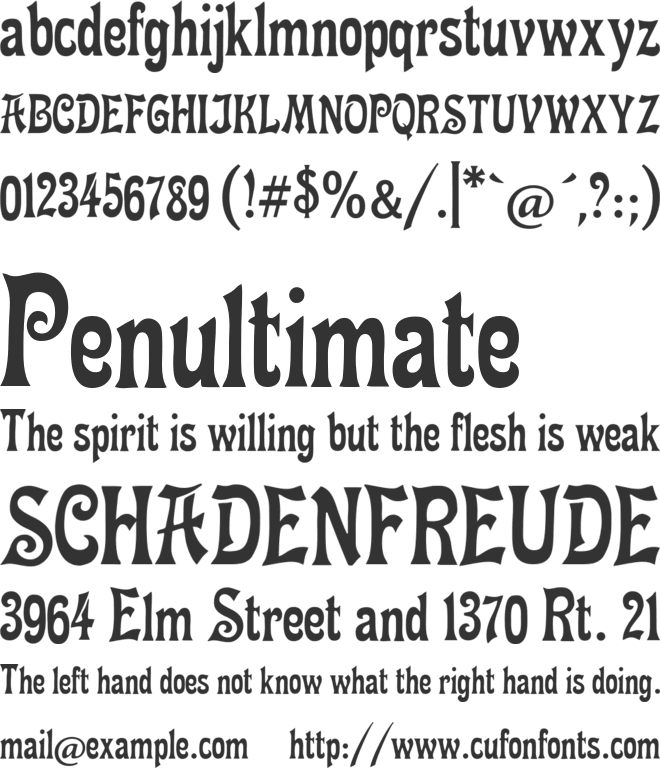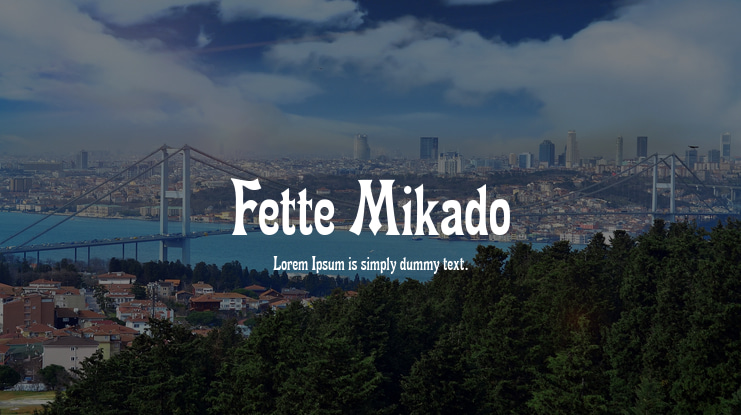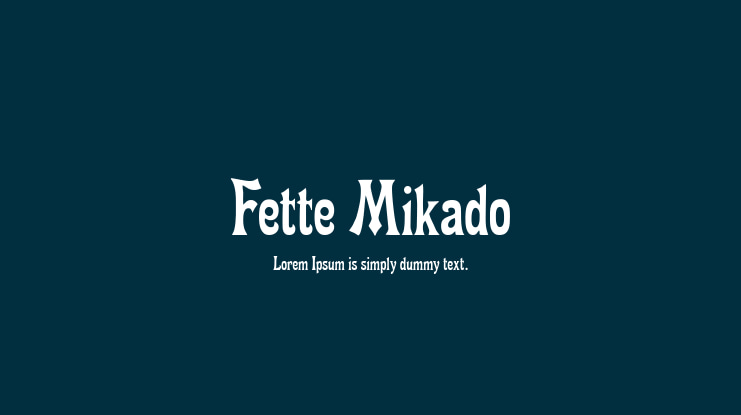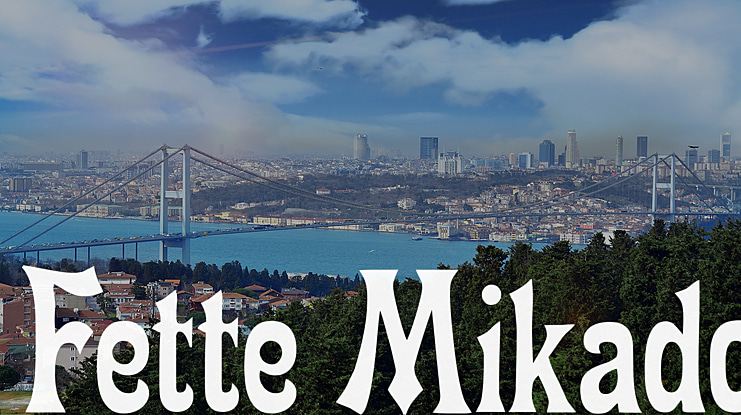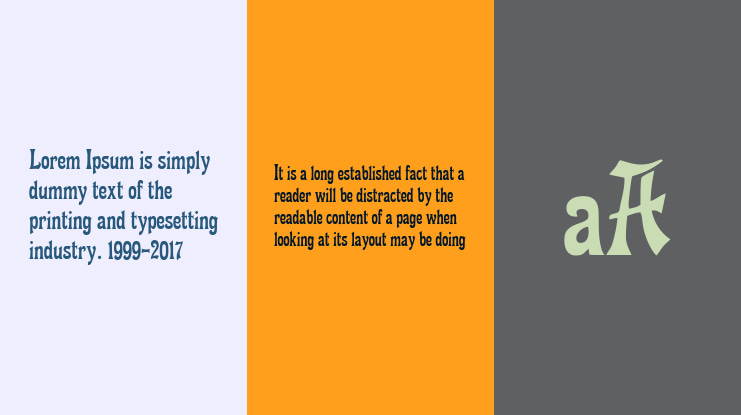
Fette Mikado Font
in 1890 the type foundry Flinsch issued a display font whose appearance is slightly Asian-inspired. It gets the name Mikado and the slightly harder version listens to the name of fat Mikado. So here is my digitized version. I must admit that I had to design punctuation and special characters myself, but I hope that they match the font. However, if someone has information about the actual appearance of the punctuation and special characters, then please let me know! Please donate if you like the font!